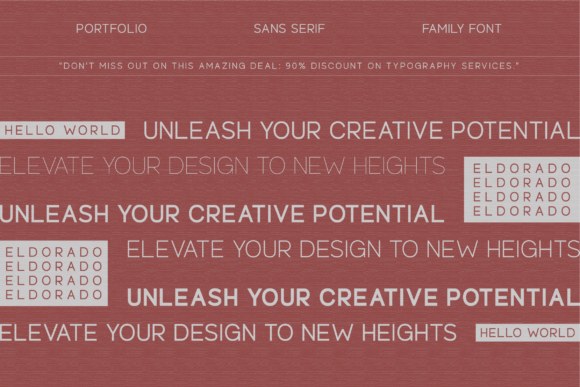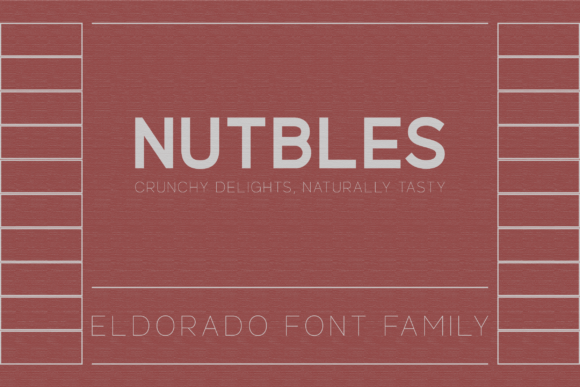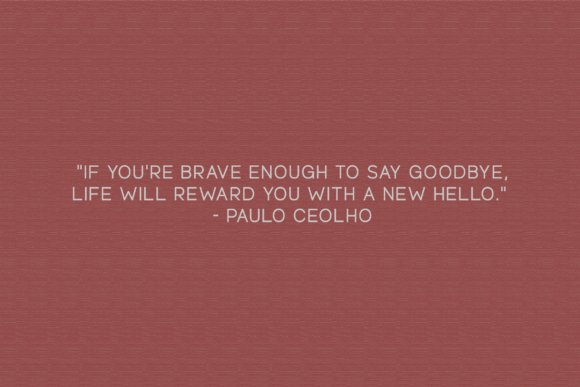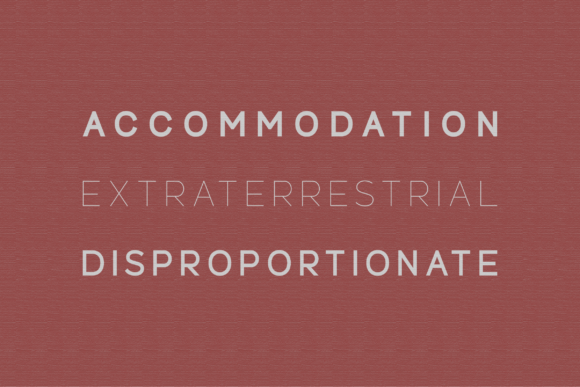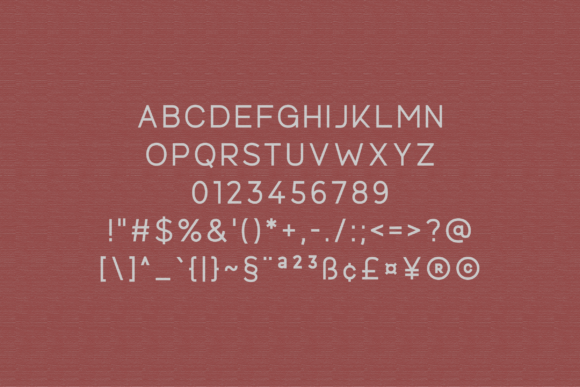
Eldorado Font: Elevate Your Designs with Elegance and Minimalism
In the world of typography, a font can make or break a design. It’s the foundation upon which the entire visual identity is built. For designers and crafters seeking a typeface that embodies elegance and minimalism, look no further than the Eldorado font family. This exquisite collection of sans serif fonts is designed to bring a touch of luxury and sophistication to any project.
The Essence of Eldorado Font
Introducing our stunning Eldorado font family, crafted with precision and attention to detail. This versatile collection comprises 5 distinct weights, allowing designers to experiment with various styles and tones. Whether you’re working on a magazine, logo, or film poster, Eldorado font seamlessly combines modernity and luxury, making it the perfect choice for a wide range of applications.
Key Features of Eldorado Font
- 5 Distinct Weights: From light to bold, Eldorado font offers a range of weights to suit every design need.
- Sans Serif Elegance: The clean lines and minimalist aesthetic of Eldorado font make it perfect for designs that require a touch of sophistication.
- Modern and Luxurious: Eldorado font effortlessly blends modernity with luxury, creating a unique visual identity for any project.
- Crafted with Precision: Each letterform has been carefully crafted to ensure that Eldorado font is both beautiful and legible.
Why Choose Eldorado Font?
For designers and crafters seeking a font that can elevate their work, Eldorado font offers a unique combination of style and versatility. Here are just a few reasons why Eldorado font stands out:
- Timeless Appeal: Eldorado font’s classic design ensures that it will remain a timeless choice for years to come.
- Versatility: With 5 distinct weights, Eldorado font can be used for a wide range of applications, from body text to headlines.
- Easy to Read: The clean lines and simple letterforms of Eldorado font make it easy to read, even at small sizes.
Unlock the Power of Eldorado Font
Design Inspiration with Eldorado Font
To give you a better idea of the versatility of Eldorado font, here are a few design inspiration ideas:
- Magazine Layouts: Use Eldorado font to create stunning magazine layouts that exude elegance and sophistication.
- Logo Design: Create a lasting impression with Eldorado font, perfect for logos that require a touch of luxury.
- Film Posters: Make your film posters stand out with Eldorado font, ideal for creating eye-catching headlines and titles.
In conclusion, Eldorado font is a versatile and elegant typeface that can elevate any design. With its 5 distinct weights, sans serif elegance, and modern luxurious aesthetic, Eldorado font is the perfect choice for designers and crafters seeking to add a touch of sophistication to their work. Unlock the power of Eldorado font today and discover a world of design possibilities.